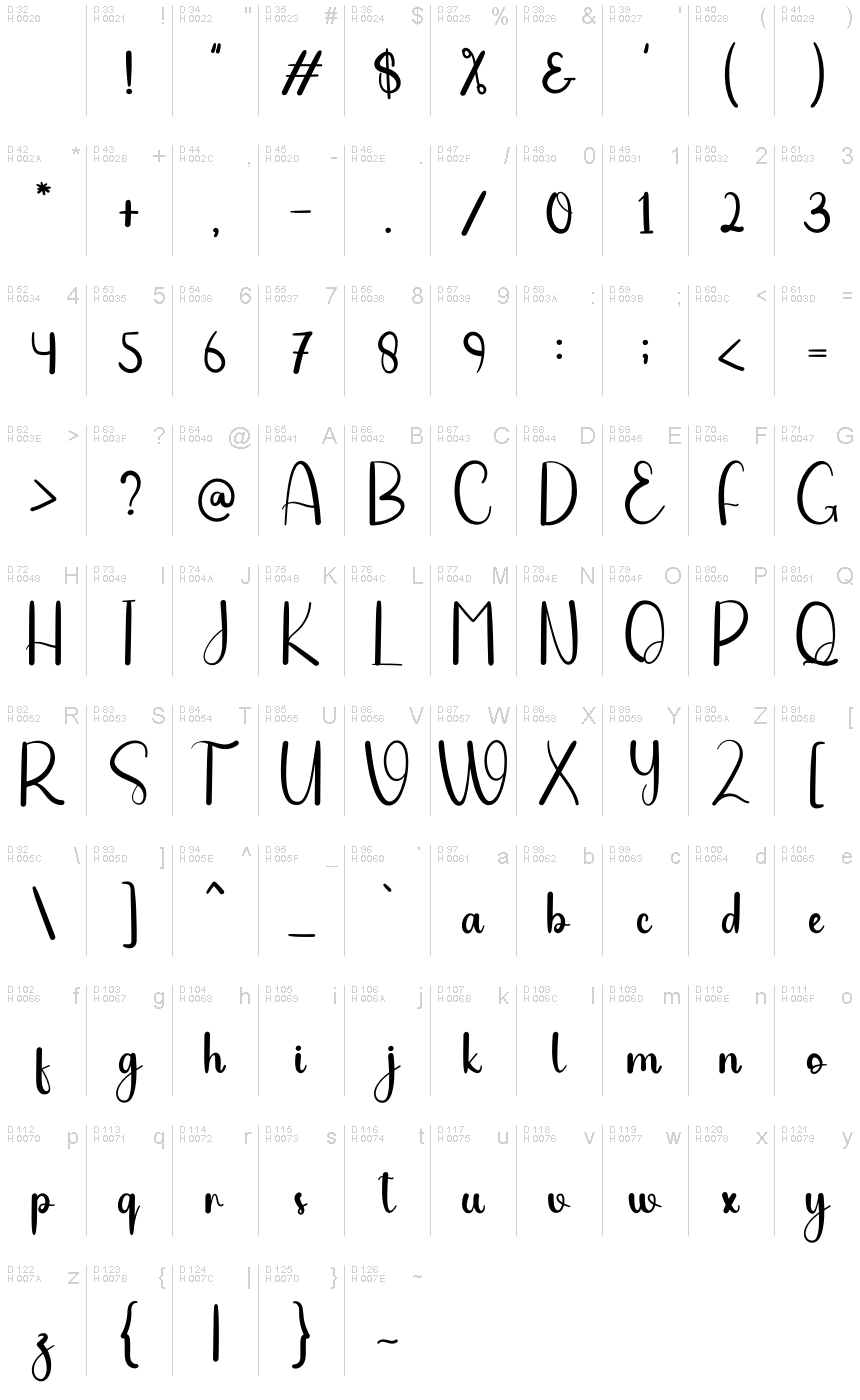
Food Chicken
Food Chicken is a delightfully whimsical handwritten font, meticulously crafted by designer Andi Moz. The distinct brush strokes and fluid ligatures evoke a sense of casual elegance, making it an ideal choice for a variety of design applications.
From playful food labels and packaging to charming typographic art, this font's unique personality shines through. Its organic, hand-lettered aesthetic lends a touch of warmth and personalization to any project, whether it's a rustic restaurant menu or a modern cookbook cover.